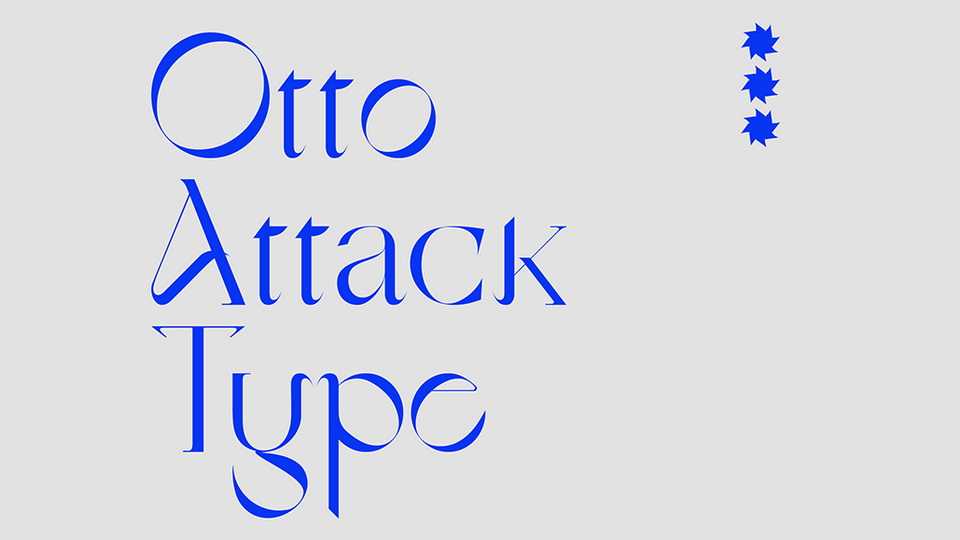
Download Otto Attack Type font, a contemporary accent contrasting serif typeface. Otto Attack Type works best for display use, logo design, headlines, posters and many more.
Designer: Ivan Tsanko